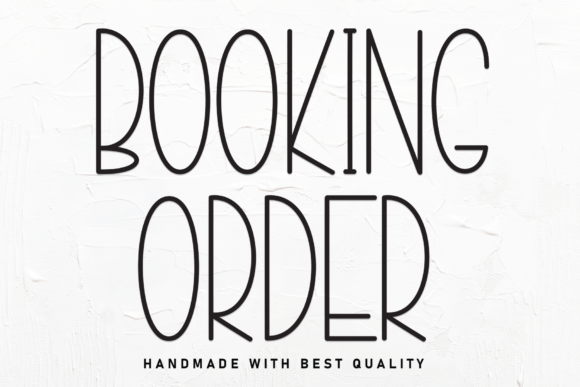
Discover the Elegance of Booking Order Font: A Timeless Sans-Serif for Your Designs
The world of typography is vast and diverse, offering a multitude of font styles that can elevate or transform the aesthetic of any design project. Among these, the Booking Order Font stands out as a beacon of elegance and simplicity. This neat and beautiful sans-serif font, characterized by an elegant touch, has captured the hearts of designers and typography enthusiasts alike. In this article, we’ll delve into the unique features of the Booking Order Font, explore its applications, and understand why it has become a favorite among creatives.
The Distinctive Charm of Booking Order Font
Booking Order Font is more than just a typeface; it’s an experience. Its incredibly distinct and timeless style sets it apart from the myriad of fonts available today. The elegance of this font lies in its simplicity and the subtle sophistication it brings to any design. Whether you’re working on a branding project, a website, or marketing materials, Booking Order Font offers a versatile and stylish solution.
Key Features of Booking Order Font
- Elegant Sans-Serif Design: The font boasts a clean and modern sans-serif design that exudes elegance and sophistication.
- Timeless Appeal: Its classic look ensures that your designs remain relevant and stylish for years to come.
- Versatility: Perfect for a wide range of projects, from digital platforms to print materials.
- Distinctive Style: Offers a unique aesthetic that can help your designs stand out.
Applications of Booking Order Font
The versatility of Booking Order Font makes it suitable for various design projects. Here are some of the areas where this font truly shines:
Branding and Logotypes
For branding and logotypes, the font’s elegance and simplicity can help create a memorable and impactful logo that communicates your brand’s values and personality.
Web Design
In web design, typography plays a crucial role in user experience. Booking Order Font, with its clean and readable design, can enhance the aesthetic and usability of websites, making it perfect for headings, titles, and even body text.
Marketing and Advertising Materials
For marketing and advertising materials such as brochures, posters, and flyers, this font can add a touch of sophistication and professionalism, ensuring your materials stand out in a crowded marketplace.
Print and Editorial Design
In print and editorial design, the font’s timeless appeal ensures that publications, magazines, and books look contemporary and stylish, engaging readers with a visually pleasing layout.
Why Choose Booking Order Font?
With so many fonts available, why should Booking Order Font be your go-to choice? Here are a few compelling reasons:
- Unique Aesthetic: Its distinct style can help your designs stand out in a sea of sameness.
- High Readability: The font’s clear and elegant design ensures high readability across various mediums.
- Easy to Pair: Its versatility makes it easy to pair with other fonts for a cohesive look.
- Support for Various Languages: Catering to a global audience with support for multiple languages.
Tips for Using Booking Order Font Effectively
To make the most of Booking Order Font, consider the following tips:
- Mix and Match: Combine it with other fonts to create visual interest and hierarchy in your designs.
- Play with Sizes: Use different font sizes to emphasize headings and titles, creating a clear visual hierarchy.
- Adjust Line Spacing: Ensure adequate line spacing for better readability, especially in body text.
- Experiment with Colors: While the font looks great in black and white, experimenting with colors can add an extra dimension to your designs.
Booking Order Font is a beautiful and elegant sans-serif font that brings a touch of sophistication and timelessness to any design project. Its unique aesthetic, versatility, and readability make it an excellent choice for a wide range of applications, from branding and web design to marketing materials and editorial projects. By incorporating Booking Order Font into your designs, you’re not just choosing a typeface; you’re embracing a style that will elevate your work and make it truly memorable.
So, fall in love with the distinct and timeless style of Booking Order Font, and let it guide you in creating spectacular designs that leave a lasting impression.